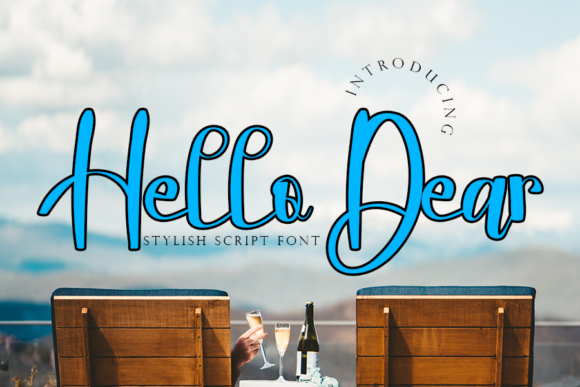
About Hello Dear Font
Hello Dear is a delicate, elegant and flowing handwritten font. It has beautiful and well balanced characters and as a result, it matches a wide pool of designs. Add it to your most creative ideas and notice how it makes them come alive!